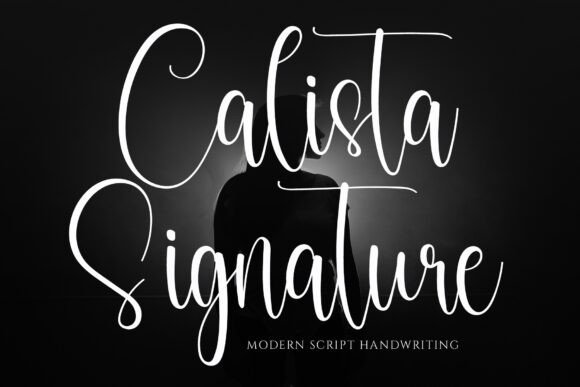
Introducing Calista Signature Font: Elevate Your Designs with Elegance and Sophistication
In the world of typography, fonts play a crucial role in conveying the tone and personality of a brand or design. When it comes to creating a lasting impression, the right font can make all the difference. This is where Calista Signature Font comes in – a beautifully crafted display handwriting font that blends elegance with a modern, artistic touch.
What Makes Calista Signature Font Stand Out?
Calista Signature Font is a stunning example of modern typography, boasting flowing strokes and well-balanced curves that create a sophisticated yet approachable feel. Its unique blend of elegance and playfulness makes it the perfect font choice for designers who want to add a touch of class and personality to their designs.
Whether you’re working on a branding project, a website, or a marketing campaign, Calista Signature Font is sure to make a statement. Its distinctive style is sure to capture the attention of your audience and leave a lasting impression.
The Characteristics of Calista Signature Font
So, what makes Calista Signature Font so special? Here are just a few of its key characteristics:
- Elegant and Sophisticated: Calista Signature Font exudes elegance and sophistication, making it perfect for high-end brands and luxury designs.
- Modern and Artistic: With its flowing strokes and artistic flair, Calista Signature Font adds a touch of modernity to any design.
- Approachable and Friendly: Despite its sophisticated feel, Calista Signature Font is approachable and friendly, making it perfect for brands that want to connect with their audience.
- Highly Versatile: Calista Signature Font can be used for a wide range of design projects, from branding and advertising to packaging and web design.
How to Use Calista Signature Font in Your Designs
Calista Signature Font is incredibly versatile, making it suitable for a wide range of design projects. Here are just a few ways you can use it in your designs:
- Branding and Logo Design: Use Calista Signature Font to create a stunning logo or brand identity that exudes elegance and sophistication.
- Advertising and Marketing: Calista Signature Font is perfect for advertising and marketing campaigns, adding a touch of class and personality to your messaging.
- Web Design: Use Calista Signature Font to create a beautiful and elegant website that showcases your brand’s personality.
- Packaging Design: Calista Signature Font is also perfect for packaging design, adding a touch of sophistication and elegance to your product packaging.
The Benefits of Using Calista Signature Font
So, why should you choose Calista Signature Font for your designs? Here are just a few of the benefits of using this stunning font:
- Unique and Memorable: Calista Signature Font is a unique and memorable font that will help your brand stand out from the crowd.
- Elegant and Sophisticated: Calista Signature Font exudes elegance and sophistication, making it perfect for high-end brands and luxury designs.
- Highly Versatile: Calista Signature Font can be used for a wide range of design projects, making it a valuable addition to your font library.
- Easy to Read: Despite its elegant and artistic feel, Calista Signature Font is easy to read, making it perfect for body text and headlines.
Tips for Getting the Most Out of Calista Signature Font
To get the most out of Calista Signature Font, here are a few tips to keep in mind:
- Use it Sparingly: Calista Signature Font is a bold and elegant font, so use it sparingly to make a lasting impression.
- Pair it with Other Fonts: Calista Signature Font pairs well with other fonts, so experiment with different combinations to find the perfect look for your design.
- Experiment with Colors: Calista Signature Font looks stunning in a range of colors, so experiment with different colors to find the perfect look for your design.
- Pay Attention to Kerning: As with any font, pay attention to kerning to ensure that your text looks professional and polished.
In conclusion, Calista Signature Font is a beautifully crafted display handwriting font that blends elegance with a modern, artistic touch. Its flowing strokes and well-balanced curves create a sophisticated yet approachable feel, making it the perfect font choice for those who want to add a touch of class and personality to their designs.
Whether you’re working on a branding project, a website, or a marketing campaign, Calista Signature Font is sure to make a statement. So why not give it a try and see the difference it can make in your designs?